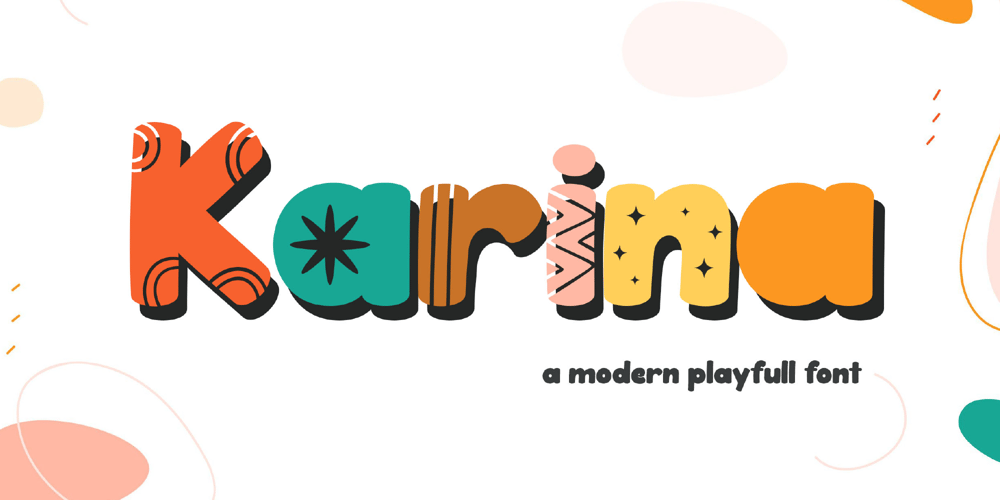
Karina Font Family was designed by Achmad Yani and published by Flawlessandco. Karina contains 3 styles and family package options. Introducing “Karina” is a modern playful font. Step into a world of contemporary charm with “Karina,” a font designed to infuse your projects with a perfect blend of modern aesthetics and playful whimsy. Karina doesn’t just bring letters to life; it introduces a dynamic trio of styles — regular, extrude, and fun — adorned with patterns in fun styles that add an extra layer of delight to your designs.There’s some connected letters and some alternates that suitable for any graphic designs such as branding materials, t-shirt, print, business cards, logo, poster, t-shirt, photography, quotes .etcThis font support for some multilingual. Also contains uppercase A-Z and lowercase a-z, alternate character, numbers 0-9, and some punctuation.If you need help, just write me! Thanks so much for checking out my shop!